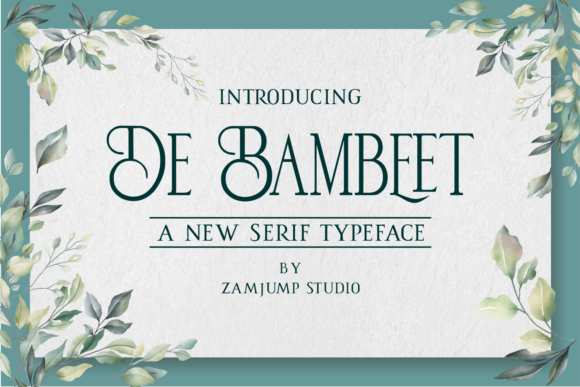
Immerse yourself in the timeless beauty of De Bambeet, an awe-inspiring serif font that captivates with its understated sophistication. Let your creativity flourish as you explore the endless possibilities that await within its versatile design. Whether you're crafting elegant letterheads, eye-catching titles, or personalized stationery, De Bambeet's allure is undeniable.
Unleash your storytelling prowess with De Bambeet, the font that transforms your words into captivating narratives. Its meticulously crafted characters exude a sense of poise and polish, elevating your designs to new heights of visual splendor. De Bambeet's timeless appeal ensures that your creations will resonate with audiences of all ages and backgrounds, leaving a lasting impression that lingers long after the final page is turned.
Experience the seamless fusion of form and function with De Bambeet, a font that effortlessly enhances the readability and visual appeal of your content. Its carefully balanced proportions and graceful curves guide the reader's eye effortlessly across the page, ensuring that your message is conveyed with clarity and impact. With De Bambeet, your words take center stage, captivating audiences with their eloquence and charm.
Embrace the boundless versatility of De Bambeet, a font that transcends the boundaries of genre and style. Its inherent adaptability makes it an indispensable tool for designers and creatives seeking to leave an indelible mark on the world. Whether you're crafting stunning logos, captivating social media graphics, or eye-catching website designs, De Bambeet's versatility knows no bounds. Unleash your imagination and let your creativity soar as you explore the myriad possibilities that await.